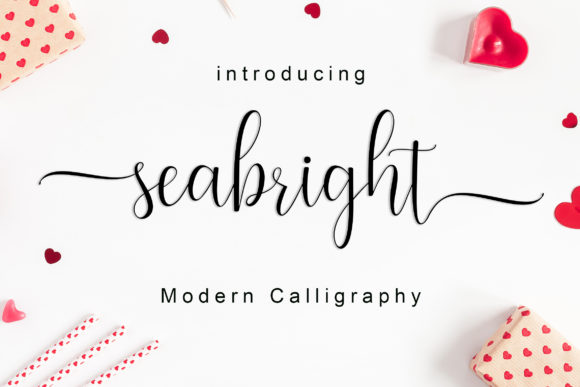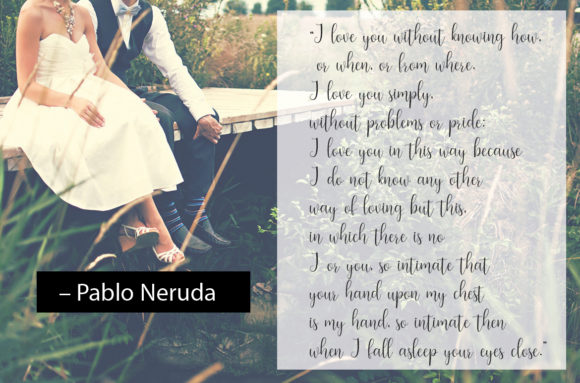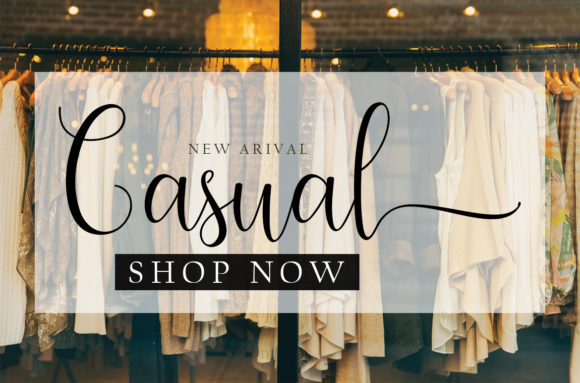
The Seabright is an amazing modern calligraphy font. It includes lots of glyph’s which gives you the opportunity to create multiple unique designs with just this one download. Its elegant style is perfect for adding a luxurious feel to your designs.